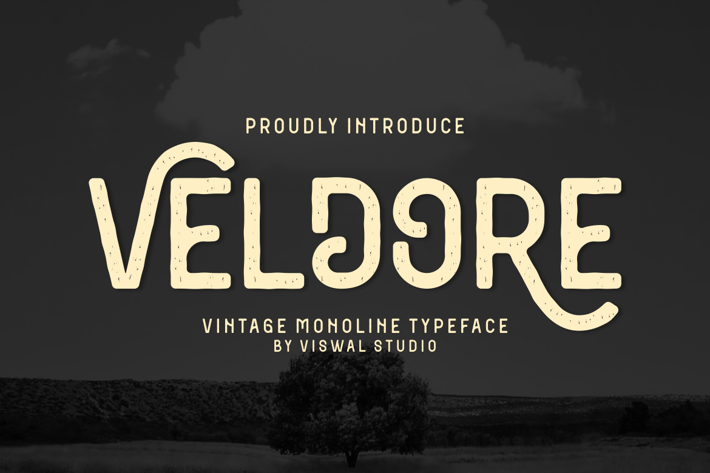
Veldore - Vintage Monoline Font
Presenting Veldore - Font is suitable for badge, labels, logo, branding, magazine, poster and etc. Our fonts have Uppercase & Lowercase, Numeral & Punctuation, Multilingual support and Opentype Features. For Amazing designs you can mix with other fonts as a complement.